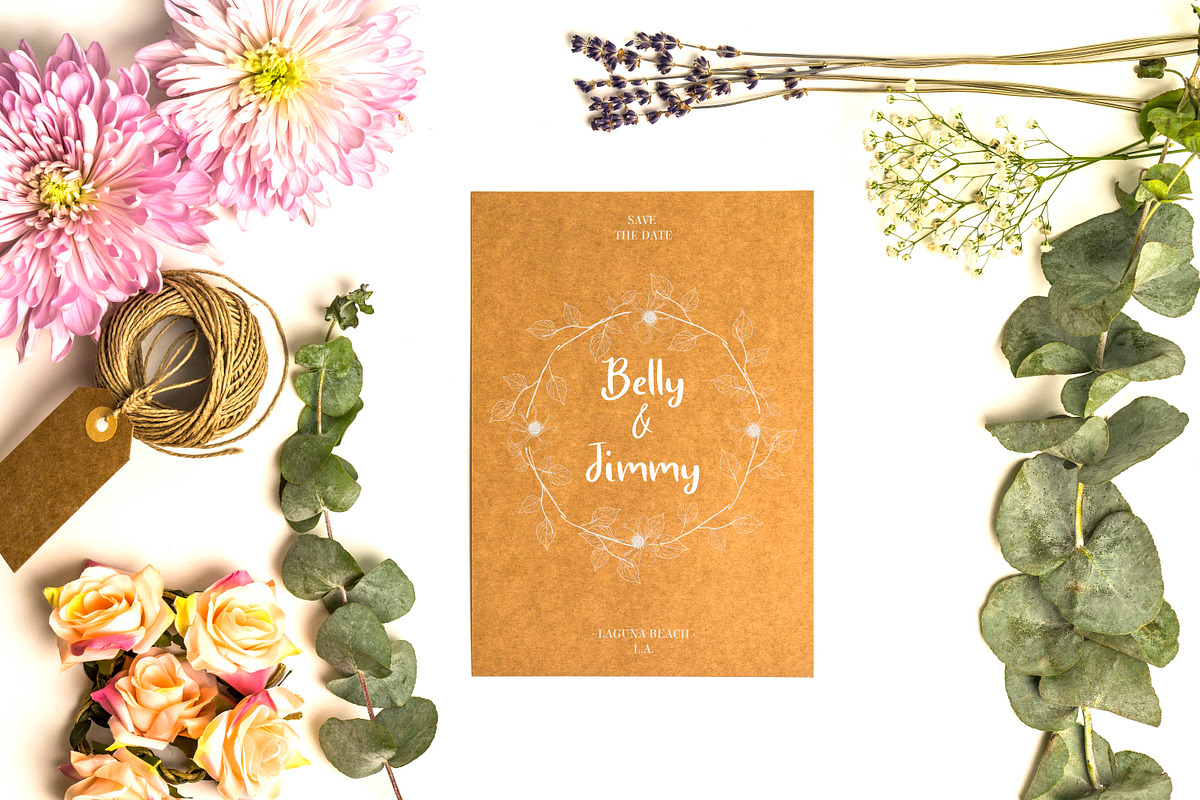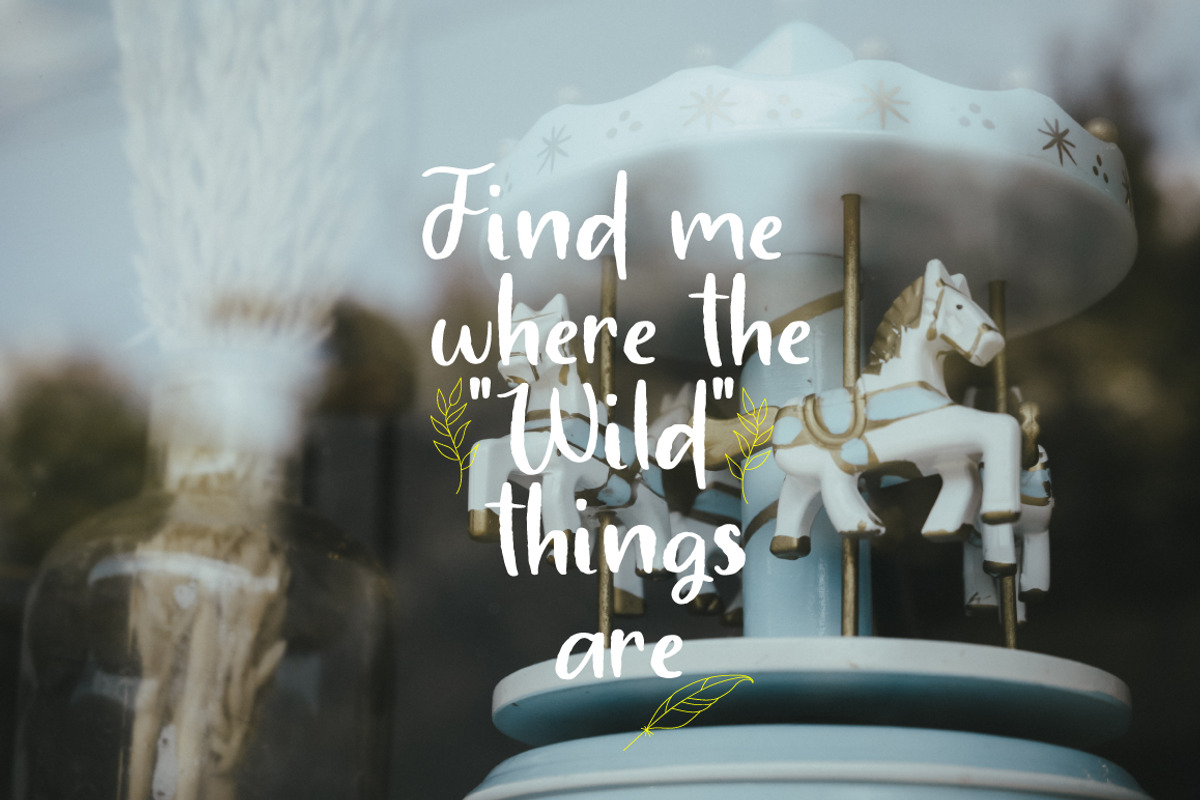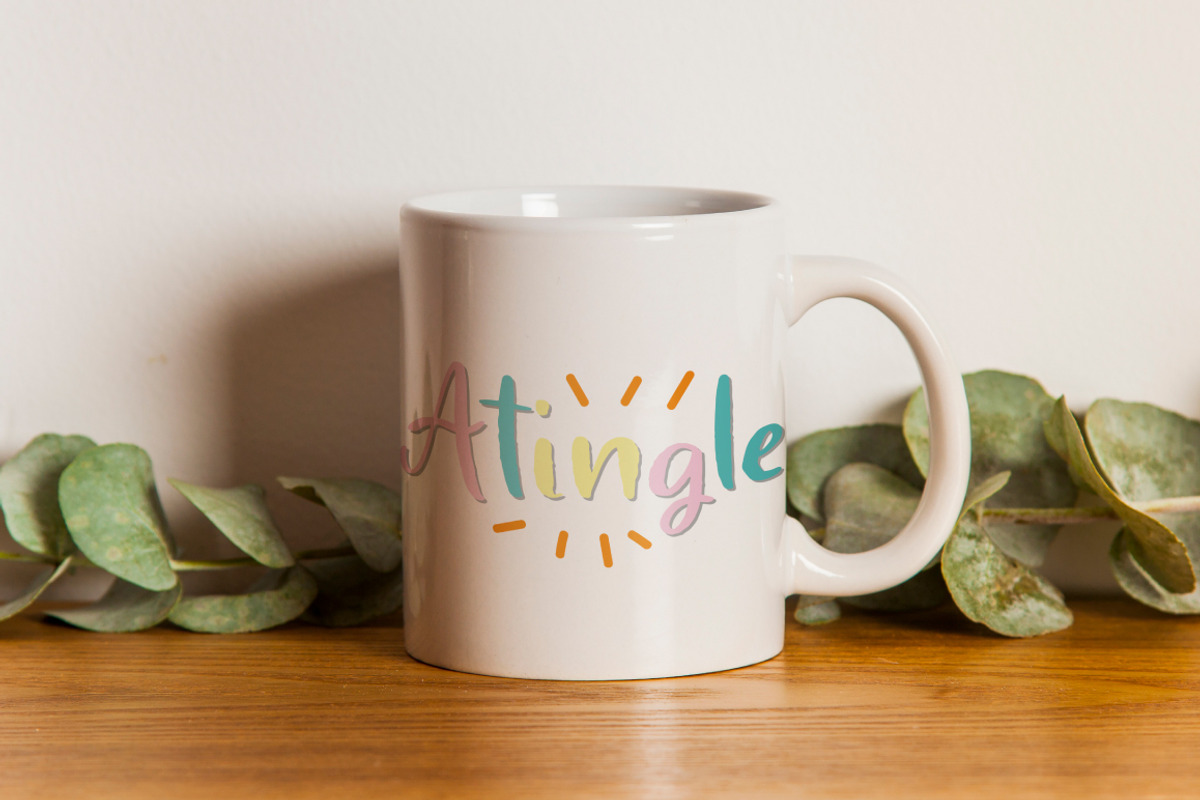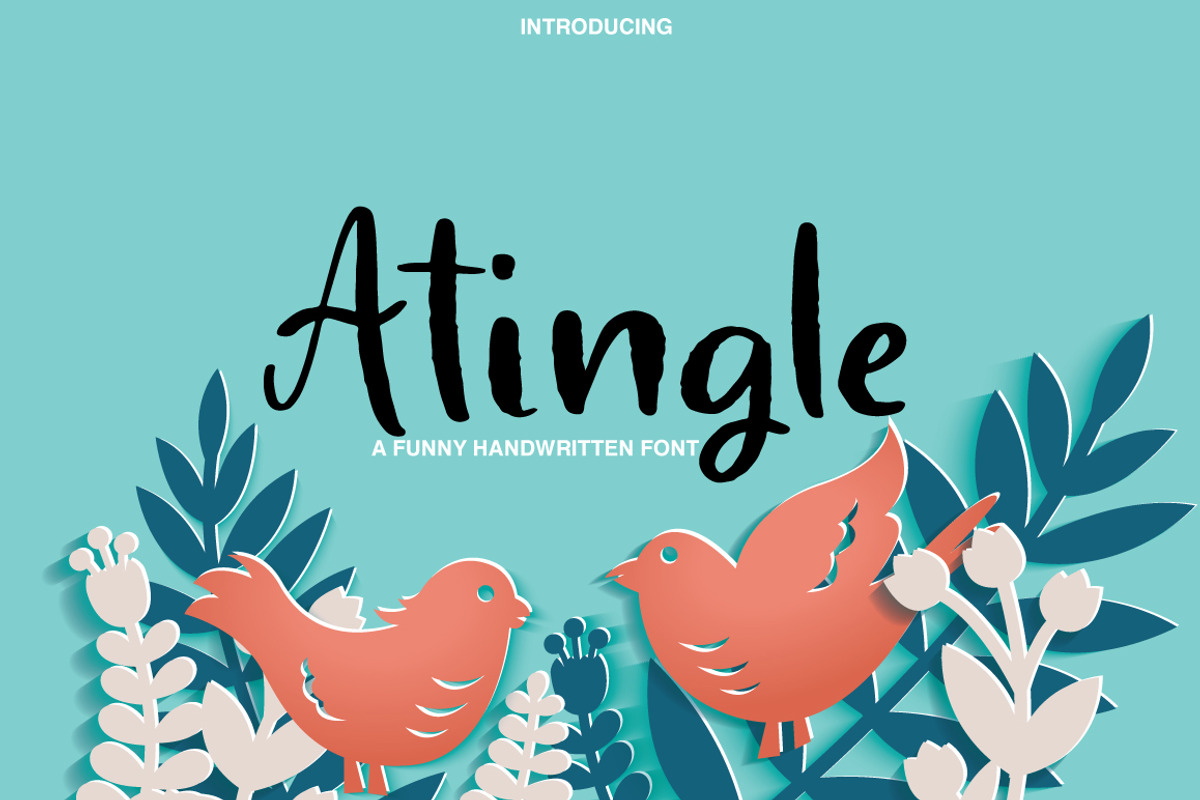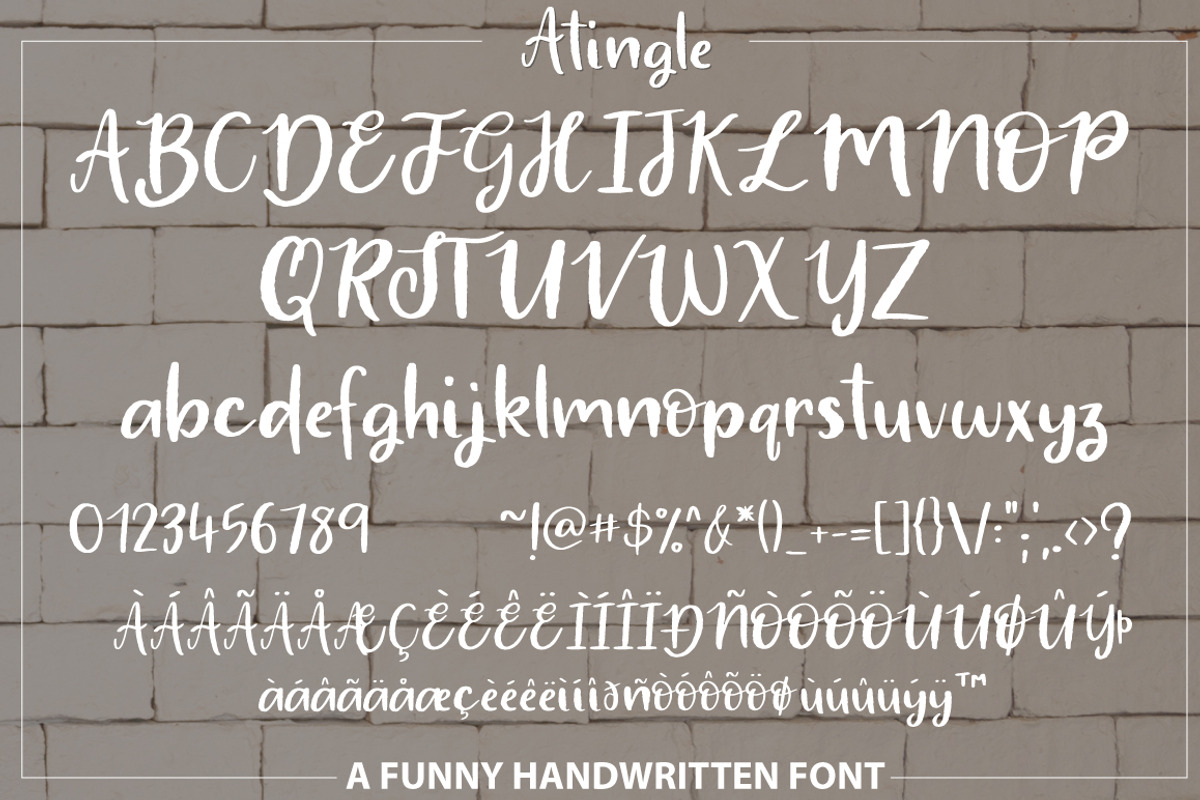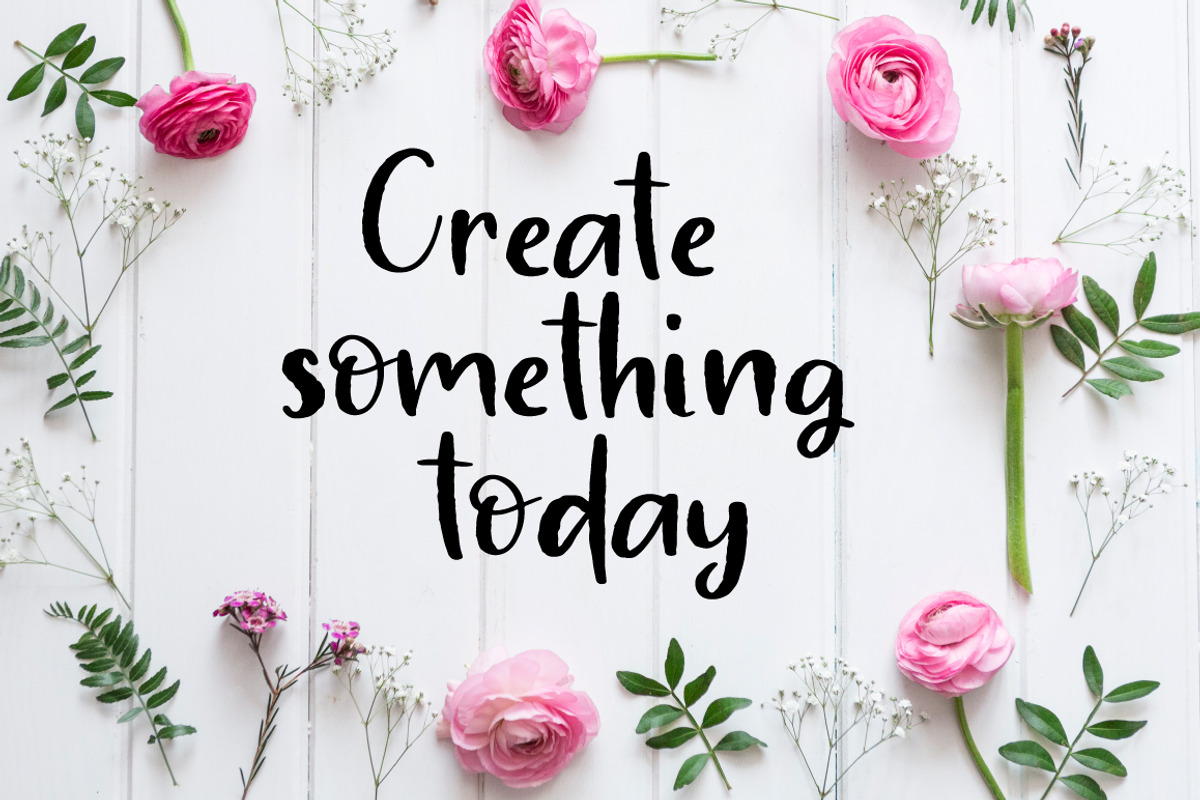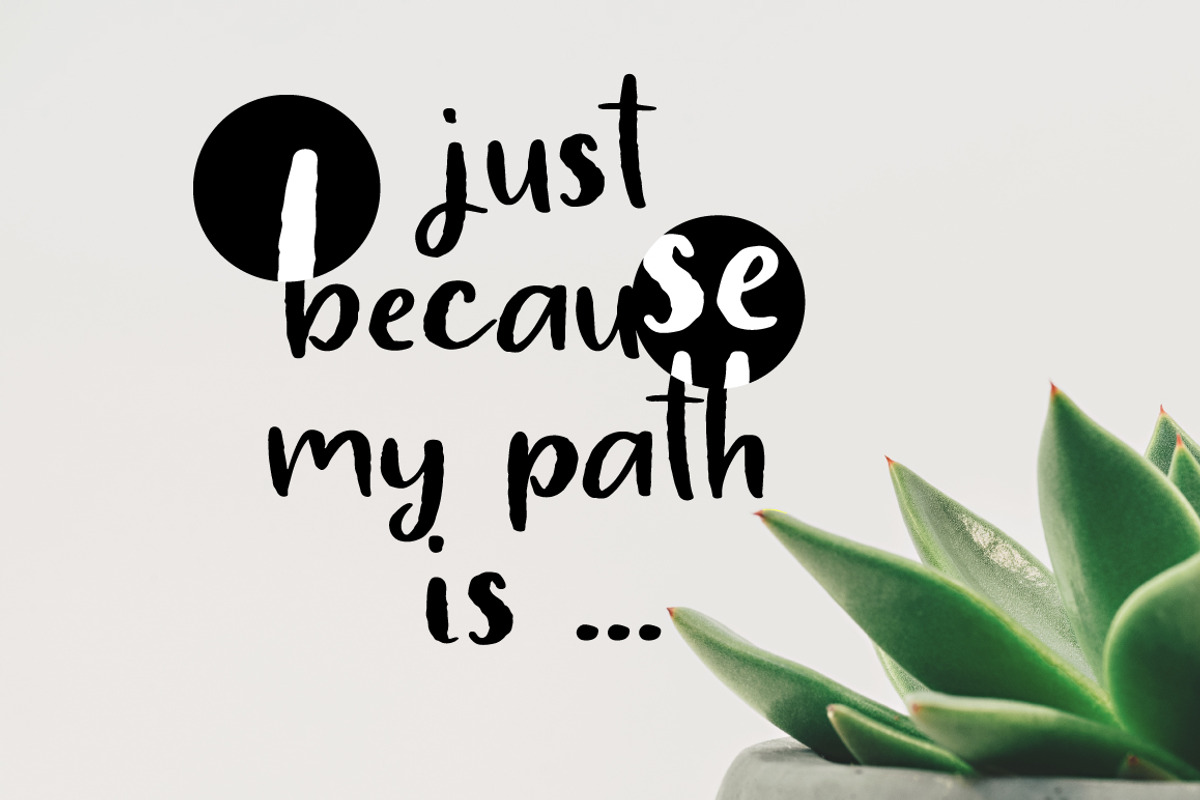
Atingle | Handwritten Font
Atingle | Handwritten font
It is a casual font with a multitude of letter variations to make that perfect and unique design.
This font is perfect for wedding invitation or your blog. Also with their help, you can create a logo or beautiful frame for your home. Or just use for your small business, book covers, stationery and more.
Atingle | Handwritten Font by Artstudio fits naturally into Branding, posters, packaging, typography.